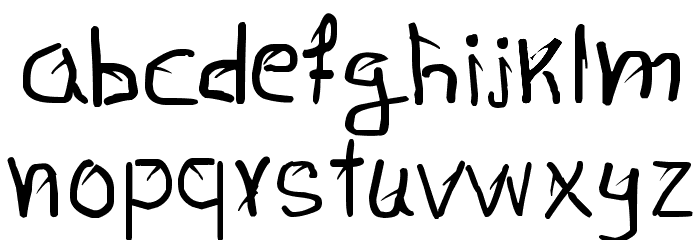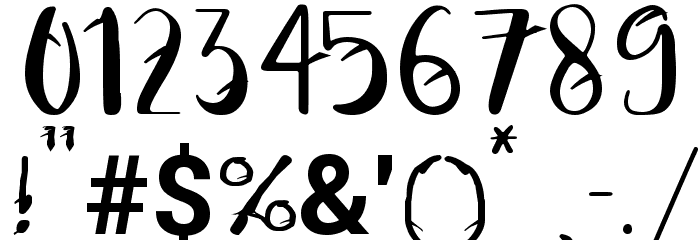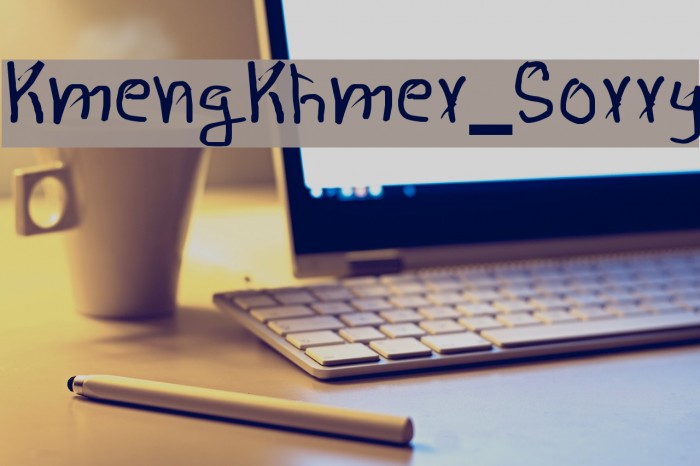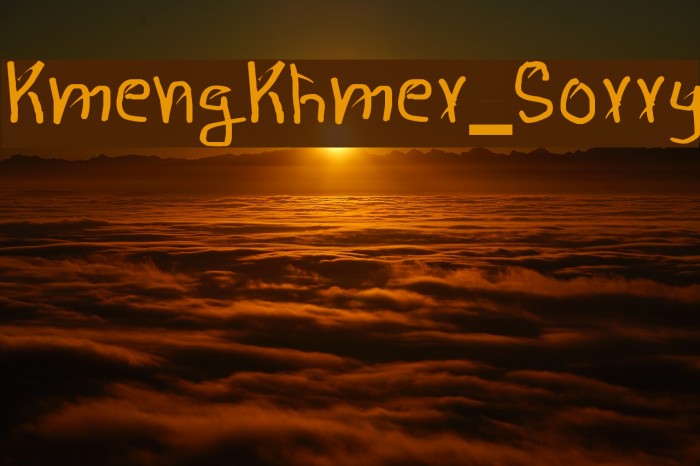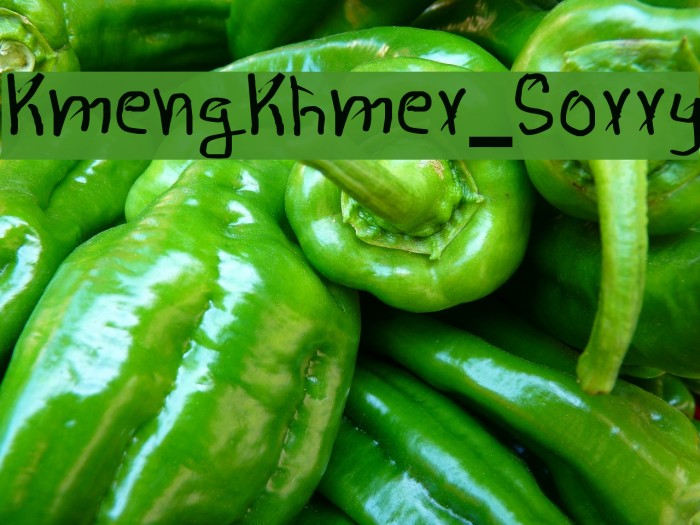
KmengKhmer_Sorry Font
This font showcases a playful and artistic style, characterized by its irregular and hand-drawn appearance. The letters exhibit a whimsical quality, with varying stroke widths and a slightly uneven baseline, giving it a casual and informal feel. The uppercase and lowercase letters maintain a consistent style, with unique flourishes and curves that add personality. The numbers and special characters follow the same artistic theme, ensuring a cohesive look throughout. This font is ideal for projects that require a touch of creativity and individuality.
A playful, hand-drawn font with an artistic and whimsical style.
- Proposed Projects: Perfect for children's books, creative posters, greeting cards, and artistic branding.
- Use Case: Headlines, Logos, Creative projects